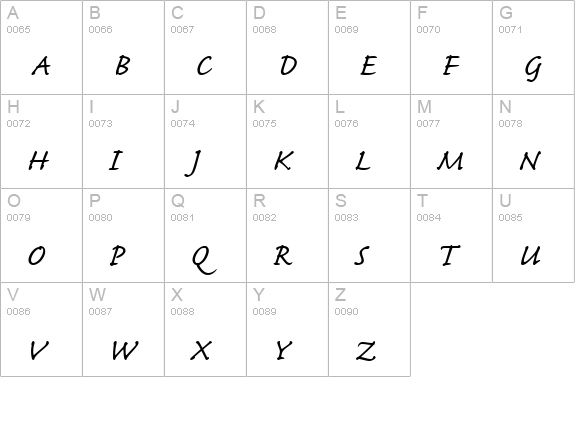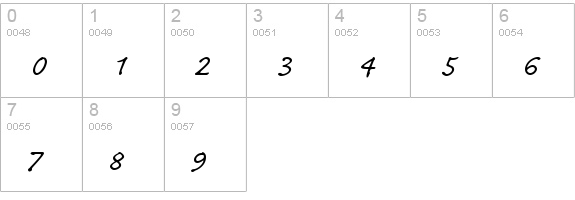
Caflisch Script Web Font Details
Caflisch Script Web font is a beautiful and elegant typeface that adds a touch of sophistication to any design project. With its flowing and graceful strokes, this script font is perfect for adding a personal and artistic flair to invitations, logos, and other creative endeavors. One of the best things about Caflisch Script Web font is that it is free to use. You can easily download this fantastic font from FontsMarket.com without any cost or hassle. This means that you can incorporate this stunning typeface into your designs without breaking the bank or worrying about licensing fees. With its versatility and timeless appeal, Caflisch Script Web font is a must-have for designers and enthusiasts alike. Whether you are working on a wedding invitation, a branding project, or simply want to add a touch of elegance to your personal website, this font is sure to impress. The carefully crafted letterforms of Caflisch Script Web font exude a sense of warmth and authenticity. Its smooth and fluid lines make it a pleasure to read, while the subtle variations in stroke width add depth and character to each letter. Another great feature of Caflisch Script Web font is its extensive character set. This font includes a wide range of international language support, allowing you to create designs that can be easily understood and appreciated by a global audience. In addition to its stunning aesthetics and practical features, Caflisch Script Web font is also highly legible, ensuring that your message is conveyed clearly and effectively. Its balanced proportions and meticulous attention to detail make it a joy to work with, whether you are designing for print or web. So why wait? Download Caflisch Script Web font today from FontsMarket.com and start adding a touch of elegance and sophistication to your designs. With its free availability and exceptional quality, this font is a true gem that should not be missed.